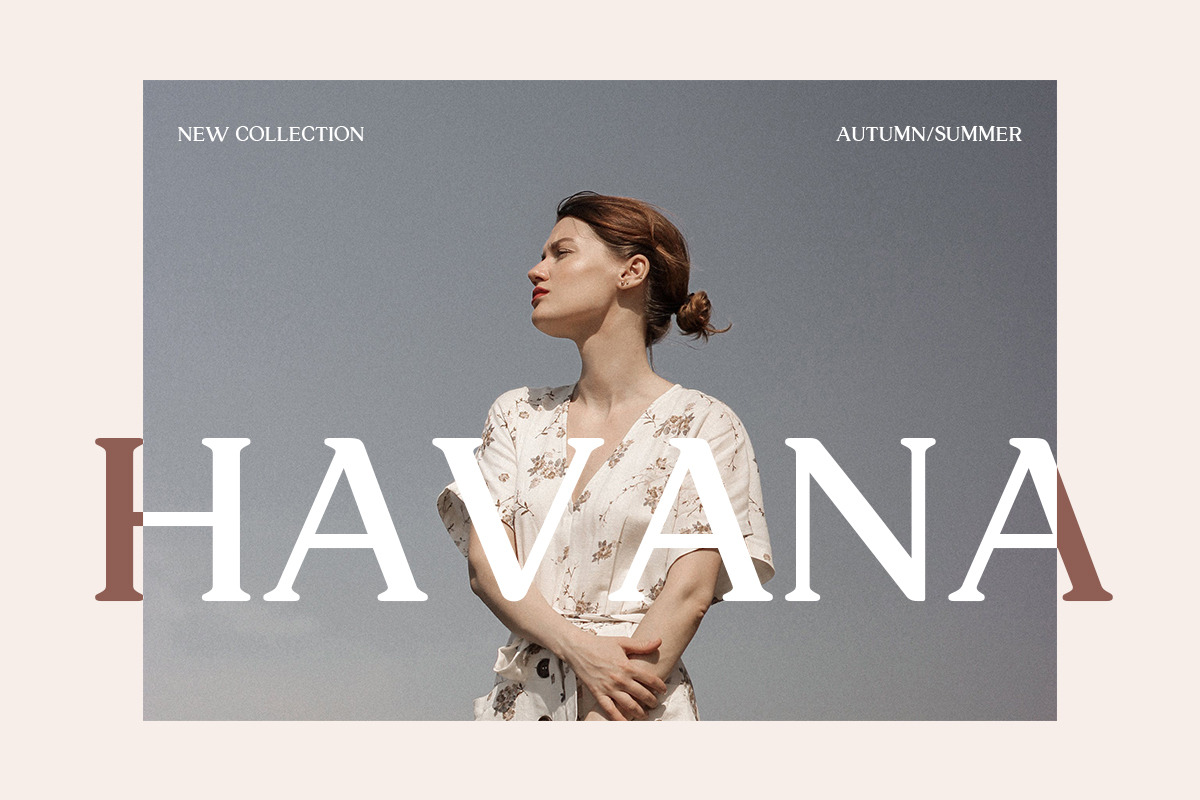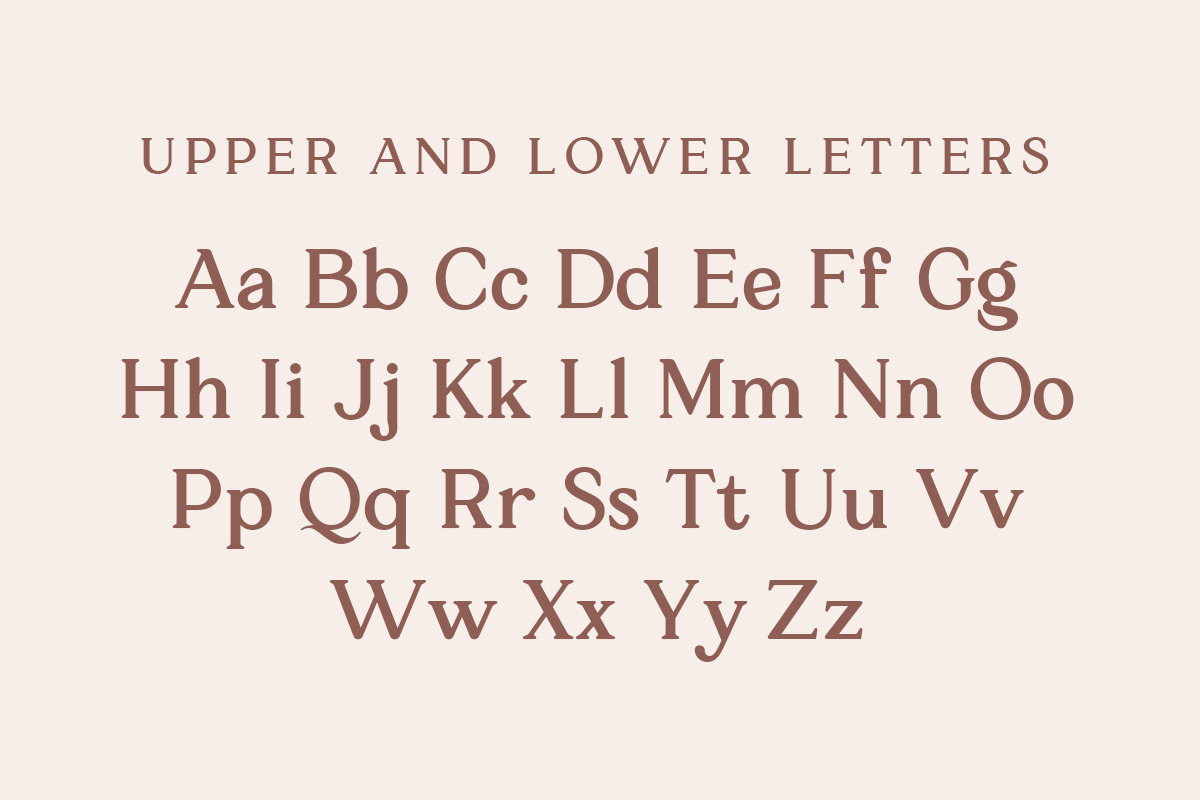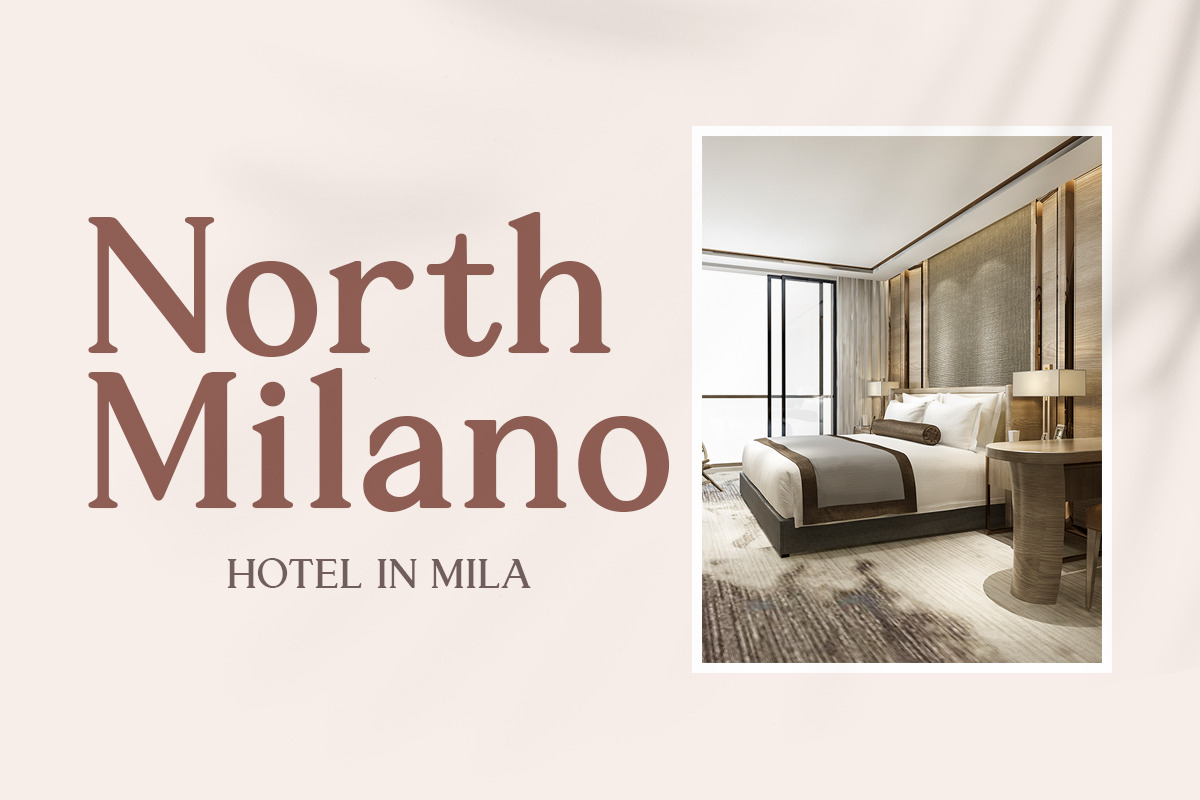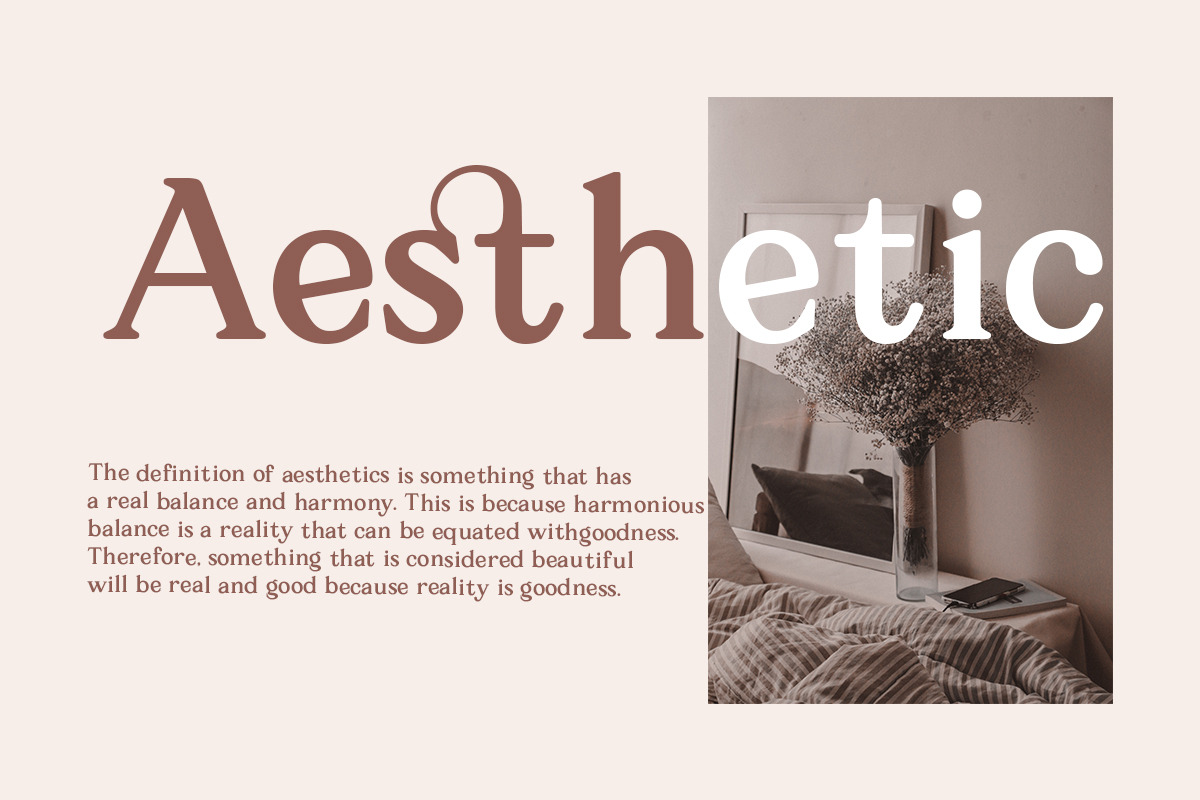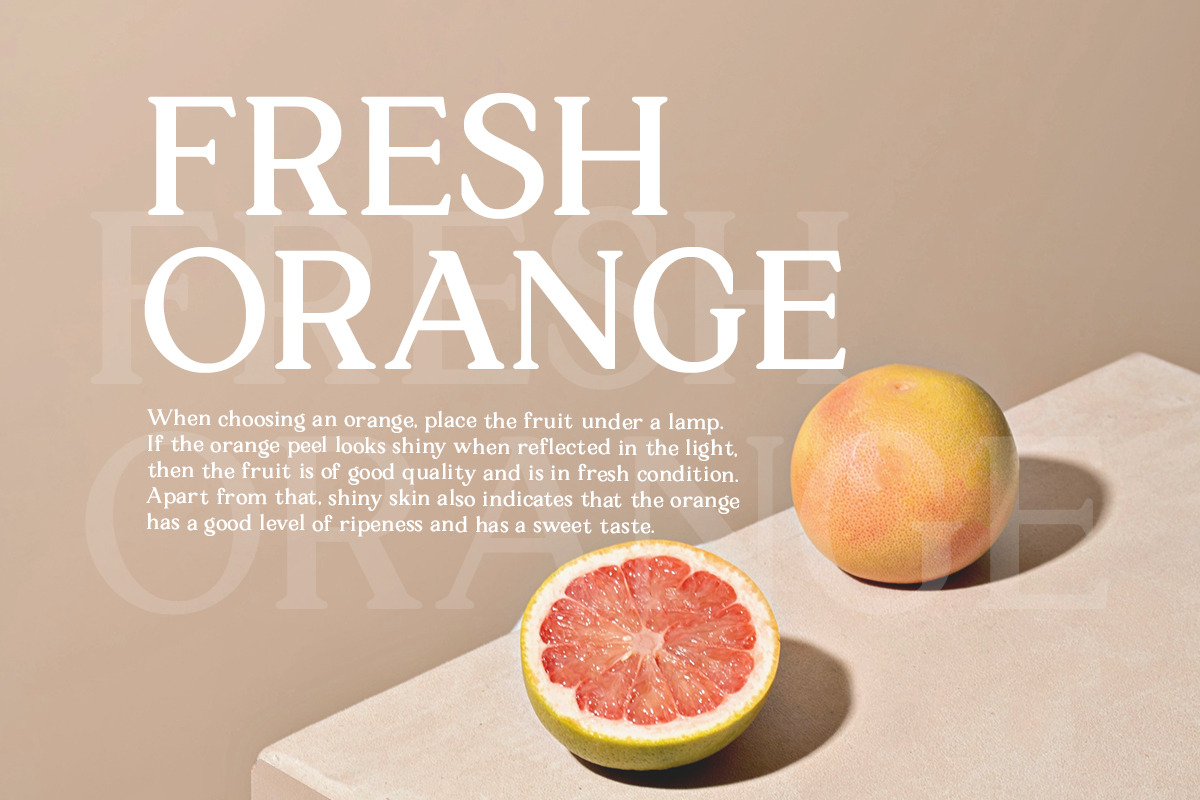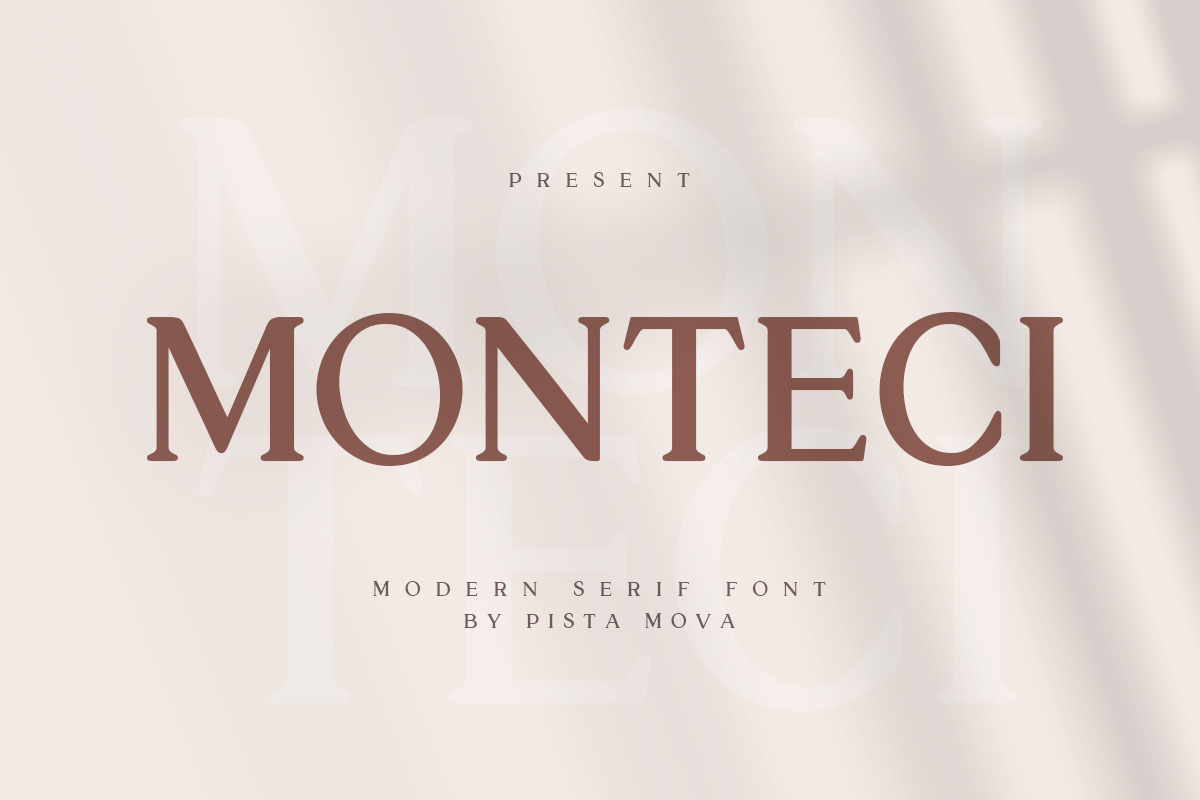
MONTECI Serif Font
MONTECI is a modern display serif font. Minimalist and classic typefaces are suitable for logos, quotes, branding or editorial designs. MONTECI has a unique character by combining geometric shapes with organic curved details. This is a unique typeface for your personal personality.